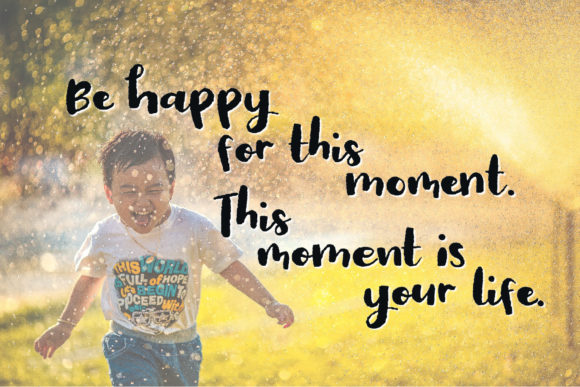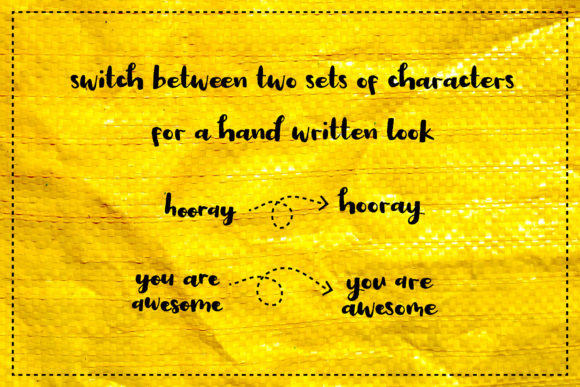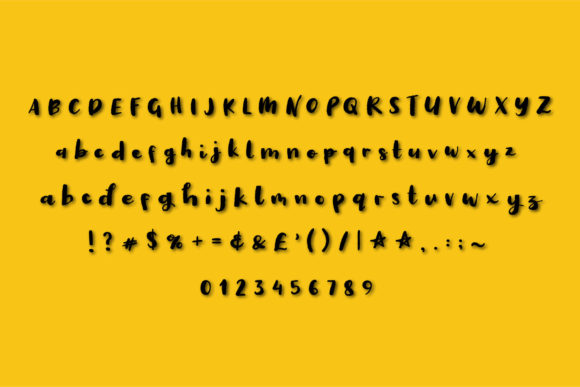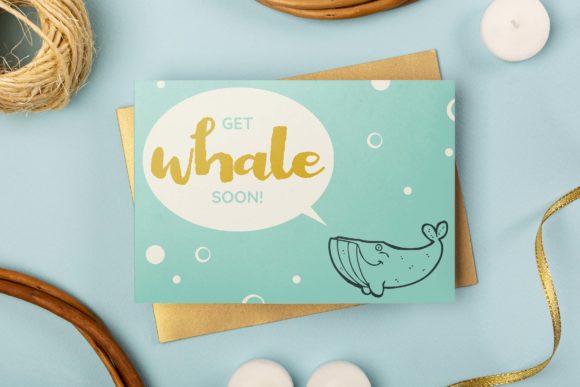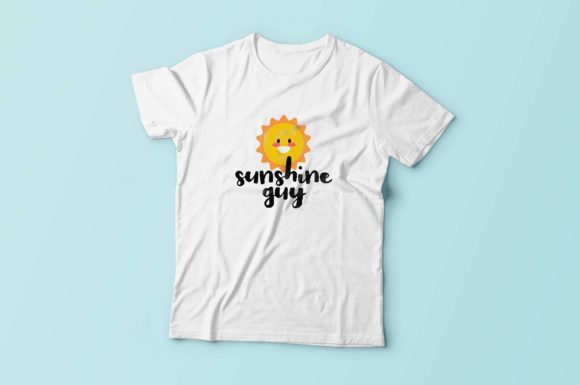
Bopster Font: Elevate Your Designs with a Chic, Trendy, and Fun Handwritten Style
In the world of digital design, typography plays a crucial role in conveying messages, expressing emotions, and creating visual identities. Among the numerous fonts available, one style that has gained significant attention in recent times is the Bopster Font. Described as chic, trendy, and fun, Bopster is a handwritten font that can add a touch of personality to your designs. In this article, we’ll explore the features, benefits, and uses of Bopster Font, and how it can make your creative ideas stand out.
What is Bopster Font?
Bopster Font is a modern, handwritten typeface that exudes a sense of playfulness and sophistication. Its unique letterforms are carefully crafted to provide a fresh and stylish look, making it perfect for designs that require a touch of whimsy and elegance. Whether you’re working on a branding project, social media graphics, or crafting digital content, Bopster Font can help you create a visually appealing and engaging experience.
Key Features of Bopster Font
• Handwritten style: Bopster Font boasts a genuine handwritten look, which adds a personal touch to your designs.
• Chic and trendy: The font’s modern design makes it perfect for projects that require a contemporary feel.
• Fun and playful: Bopster Font’s playful curves and lines inject a sense of fun and energy into your designs.
• Highly versatile: This font can be used for a wide range of projects, from digital content to print materials.
Benefits of Using Bopster Font
So, why should you choose Bopster Font for your designs? Here are some benefits that make it an excellent addition to your typography collection:
• Stand out from the crowd: Bopster Font’s unique style helps your designs stand out in a sea of similar typography.
• Convey personality: The font’s handwritten style and playful feel allow you to inject personality into your designs.
• Easy to read: Despite its creative style, Bopster Font remains highly legible, making it suitable for body text and headings.
• Time-saving: With Bopster Font, you can create stunning designs quickly, without compromising on quality.
Use Cases for Bopster Font
Bopster Font’s versatility makes it suitable for a wide range of design projects. Here are some use cases to get you started:
• Branding and logos: Use Bopster Font to create a unique and memorable brand identity.
• Social media graphics: Add a touch of personality to your social media posts and stories with Bopster Font.
• Digital content: Use Bopster Font to create engaging blog posts, articles, and newsletters.
• Crafting and DIY projects: Bopster Font is perfect for crafting and DIY projects, such as making planners, journals, and cards.
Tips for Using Bopster Font Effectively
To get the most out of Bopster Font, here are some tips to keep in mind:
• Pair with complementary fonts: Combine Bopster Font with serif or sans-serif fonts to create a harmonious contrast.
• Experiment with colors: Try out different color schemes to find the perfect match for your design.
• Play with sizes and styles: Use Bopster Font in various sizes and styles to create visual hierarchy and emphasis.
Font Name Bopster Font
Author Helen Pea
Bopster Font is a chic, trendy, and fun handwritten font that can elevate your designs to the next level. With its unique style, versatility, and ease of use, it’s perfect for designers and crafters looking to add a touch of personality to their projects. Whether you’re working on branding, social media graphics, or digital content, Bopster Font is an excellent choice. So, why not give it a try and see how it can make your creative ideas stand out?